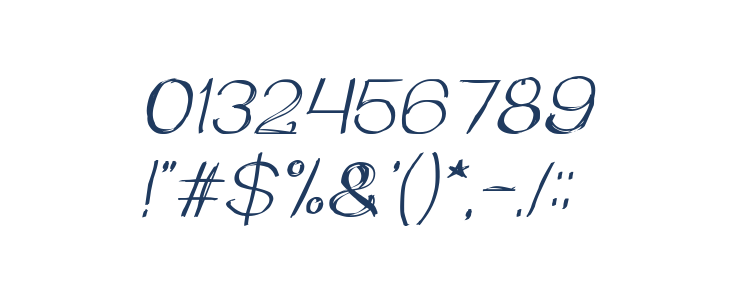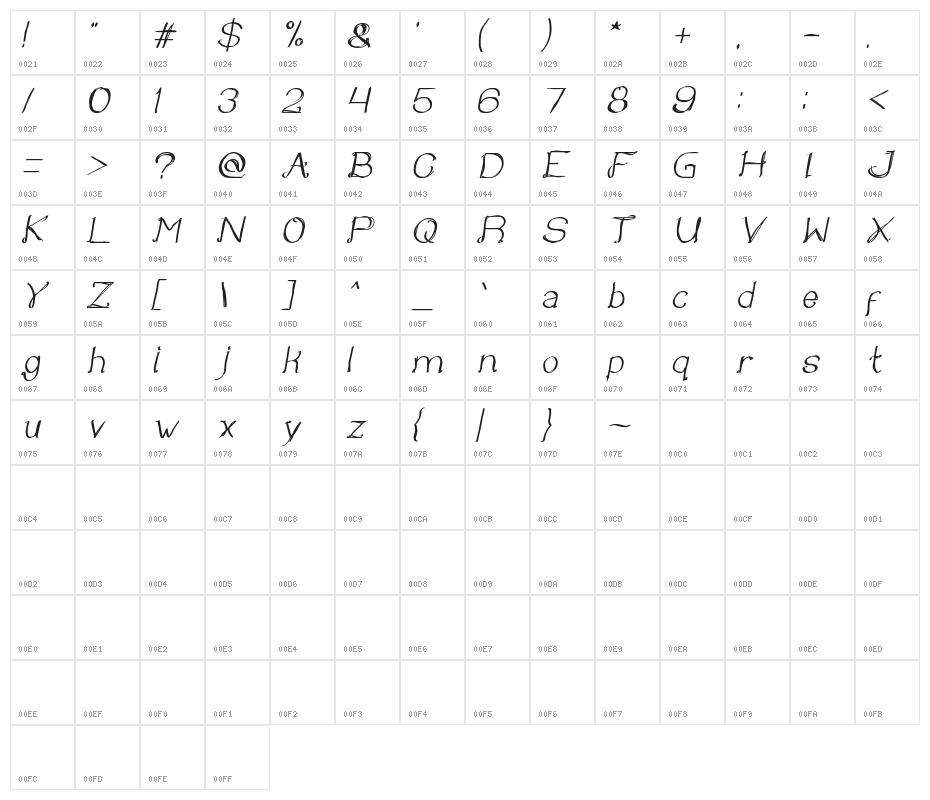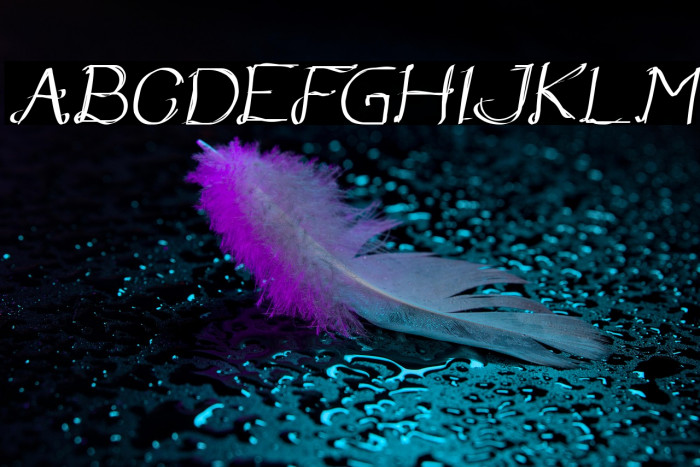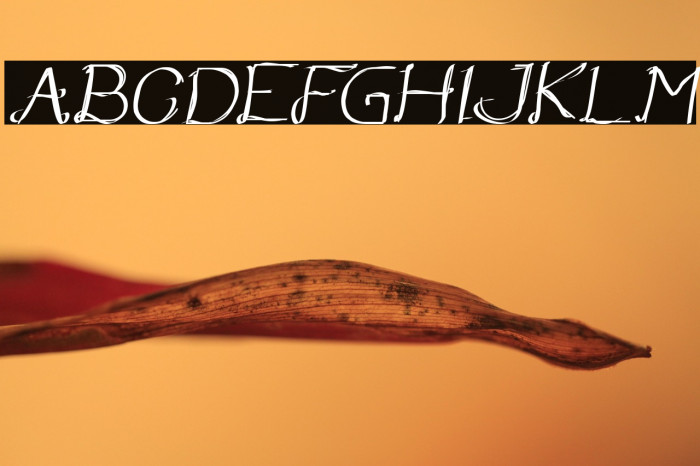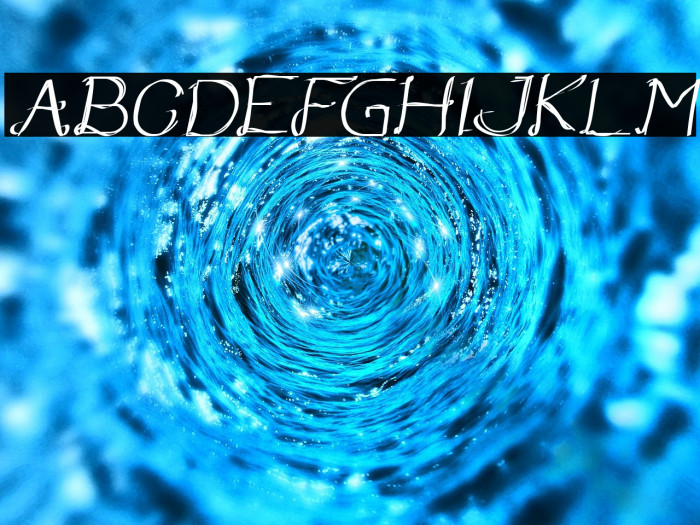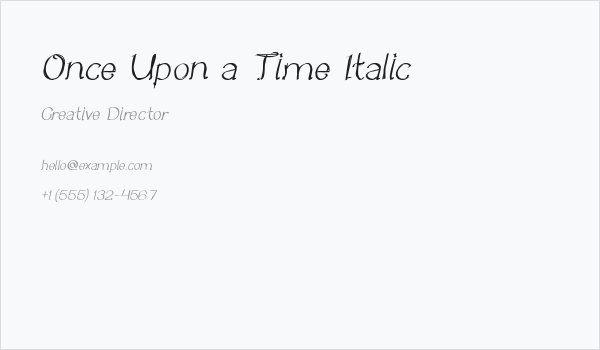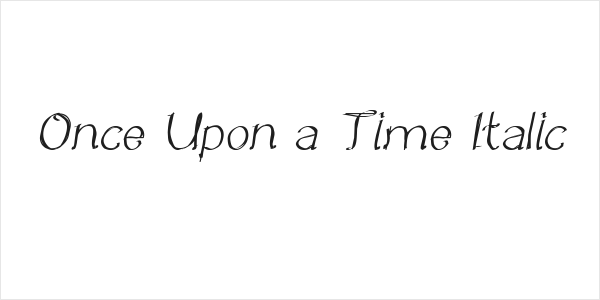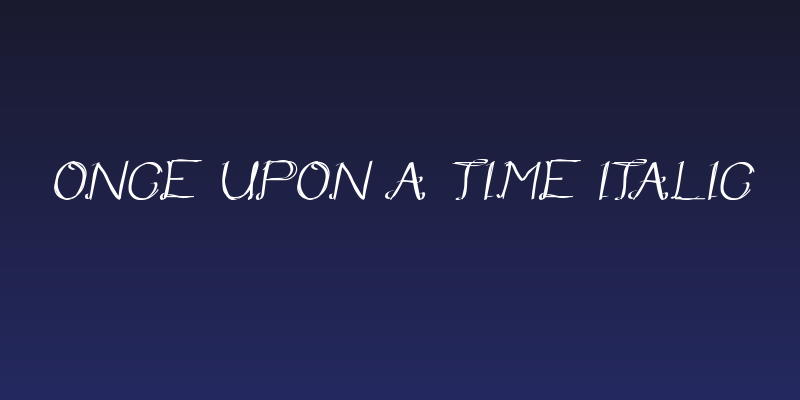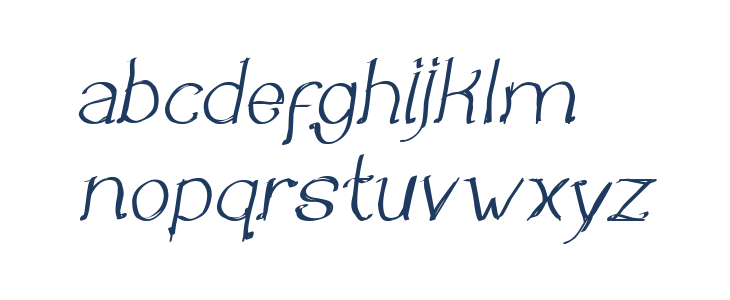
Once Upon a Time Italic Font
Once Upon a Time Italic Description
This font exudes a whimsical and fairy-tale-like charm, characterized by its flowing, cursive style with a distinct italic slant. The letters are adorned with playful swirls and loops, giving it a handwritten appearance that feels both elegant and enchanting. The uppercase letters are tall and slender, while the lowercase letters maintain a consistent flow, enhancing readability. The numbers and special characters follow the same stylistic cues, ensuring a cohesive look across all text elements. The overall design is reminiscent of storybook titles, making it ideal for projects that require a touch of magic and fantasy.